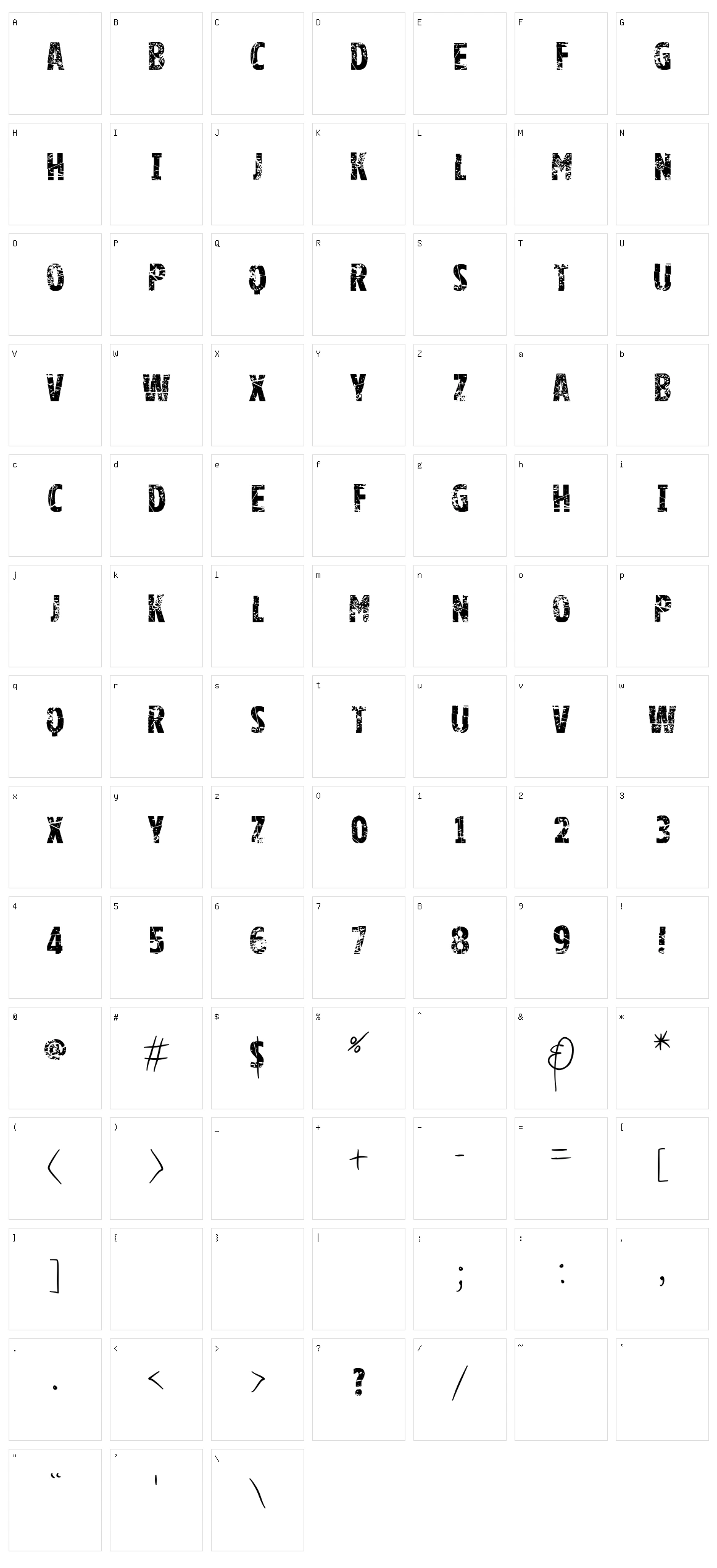
The free font Vtks Good Luck for You is carefully designed by Douglas Vitkauskas, showcasing a thoughtful balance of creativity and usability and falls under the Destroy font style. When you download the ZIP file, it contains only 130.24 KB of font files, making it lightweight and quick to download. Please review the license details below to understand permitted usage and distribution rights. If license information is not available, we recommend using this font for personal projects only or contacting the author directly for commercial usage permissions.